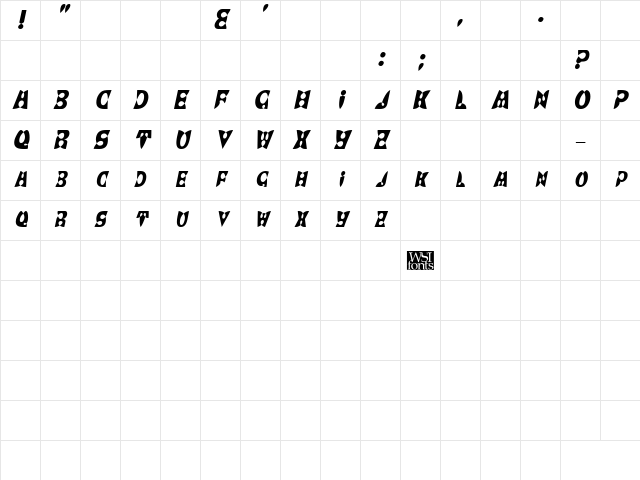
BrashDisplayCaps Italic
BrashDisplayCaps Family
BrashDisplayCaps Italic
Design Context for BrashDisplayCaps
BrashDisplayCaps is built around its visual character rather than neutral utility - its distinctive forms are designed to make an impression at display sizes. The slanted form adds forward momentum and visual energy.
Font Pairing: Pair with a clean neutral sans-serif for body copy to let BrashDisplayCaps's character lead without overwhelming the composition.
Pro Tip: Use BrashDisplayCaps exclusively at display sizes - it was designed to be seen, not read at length. Let a neutral companion handle body copy.